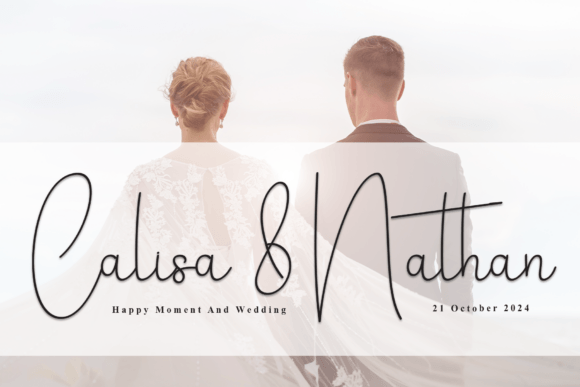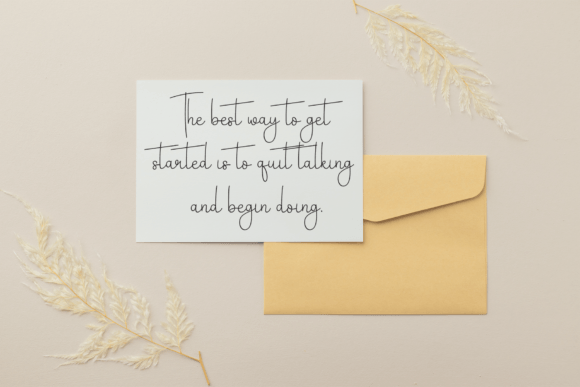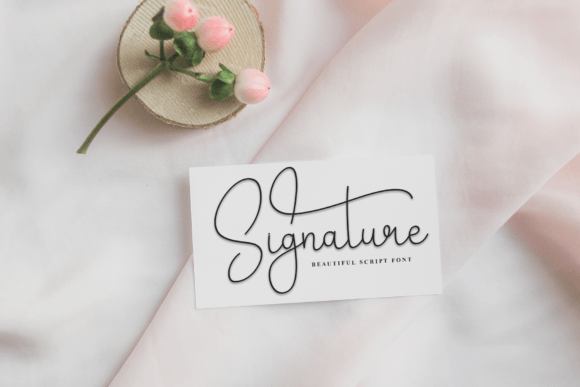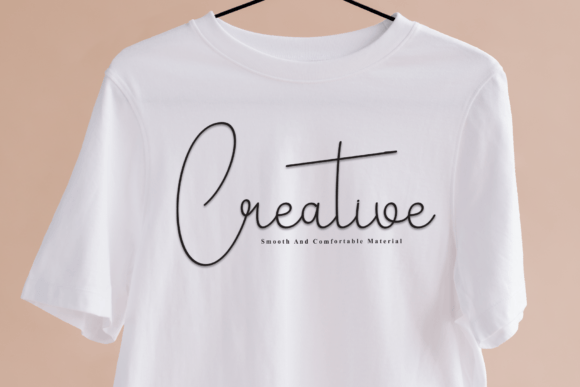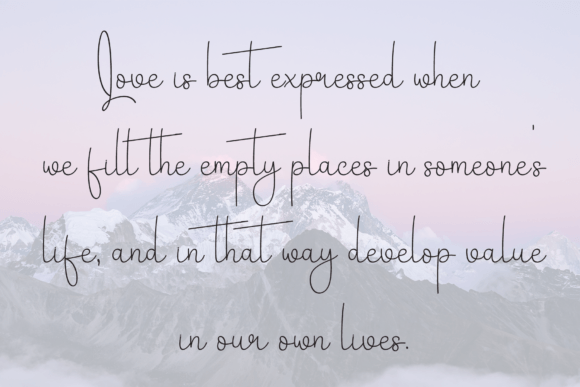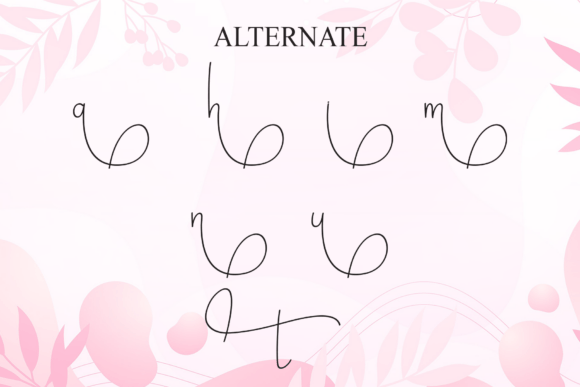
Give Your Designs a Personal Touch
Have you ever stared at a blank page, waiting for the perfect font to bring your creative vision to life? I know I have. There’s something magical about finding that one font that makes your design pop, and for me, that font is Beautiful Font.
This charming handwritten display font is more than just a pretty face – it’s a way to add a personal touch to your work. With its lively and adorable demeanor, Beautiful Font is perfect for crafting wedding invitations, personalized cards, or any design that needs a delightful spin. Whether you’re a seasoned designer or just starting out, this font is a valuable addition to your toolkit, offering endless possibilities for creativity and self-expression.
Beautiful Font Key Features
- Font Family: Beautiful Font offers a range of 6 elegant font families, each with 12 styles (Light, Thin, Regular, Medium, Bold, Black, Italic, Bold Italic, etc.)
- Character Set: Includes over 2500 characters, including Latin, Cyrillic, Greek, and special characters, making it suitable for multilingual designs
- Unique Characteristics: Beautiful Font features a unique blend of modern and classic elements, with subtle flair and texture, making it perfect for luxury, fashion, and high-end designs
Designer Review: Beautiful Font
Overall, I was quite impressed with the Beautiful Font, but it’s not without its flaws. ✨ Here are some things that I think work well:
- The Beautiful Font has a very elegant and sophisticated feel to it, making it perfect for high-end branding and design projects.
- The font is highly customizable, with a wide range of options for adjusting size, color, and spacing.
- The Beautiful Font is also highly legible, even at small font sizes, making it suitable for use in digital applications.
However, there are also some limitations to consider ⚠️:
- The Beautiful Font can be a bit too ornate for some designs, which may make it difficult to read in certain contexts.
- The font may not be suitable for use in body text, as it can be a bit too formal and may not be easily readable in large blocks of text.
- The Beautiful Font is not as versatile as some other fonts, and may not be suitable for use in a wide range of design applications.
Overall, I think the Beautiful Font is a great choice for designers who are looking for a high-end, sophisticated font for their projects. However, it’s not a one-size-fits-all solution, and designers should carefully consider whether it’s the right choice for their specific needs.
Getting the Most Out of Beautiful Font
To get the most out of Beautiful Font, try the following tips:
- Use it in combination with other design elements to create a cohesive look.
- Use Beautiful Font to create headings and subheadings to add structure to your design.
Beautiful Font is commonly used for:
- Creating visually appealing headings and subheadings.
- Designing branding materials, such as logos and business cards.
- Creating social media graphics
Merriweather is a classic serif font that exudes a sense of tradition and timelessness. It’s perfect for use in body text, as it’s highly legible and easy to read. Use it when you want to create a sense of stability and familiarity in your design. It is more formal than Beautiful Font.